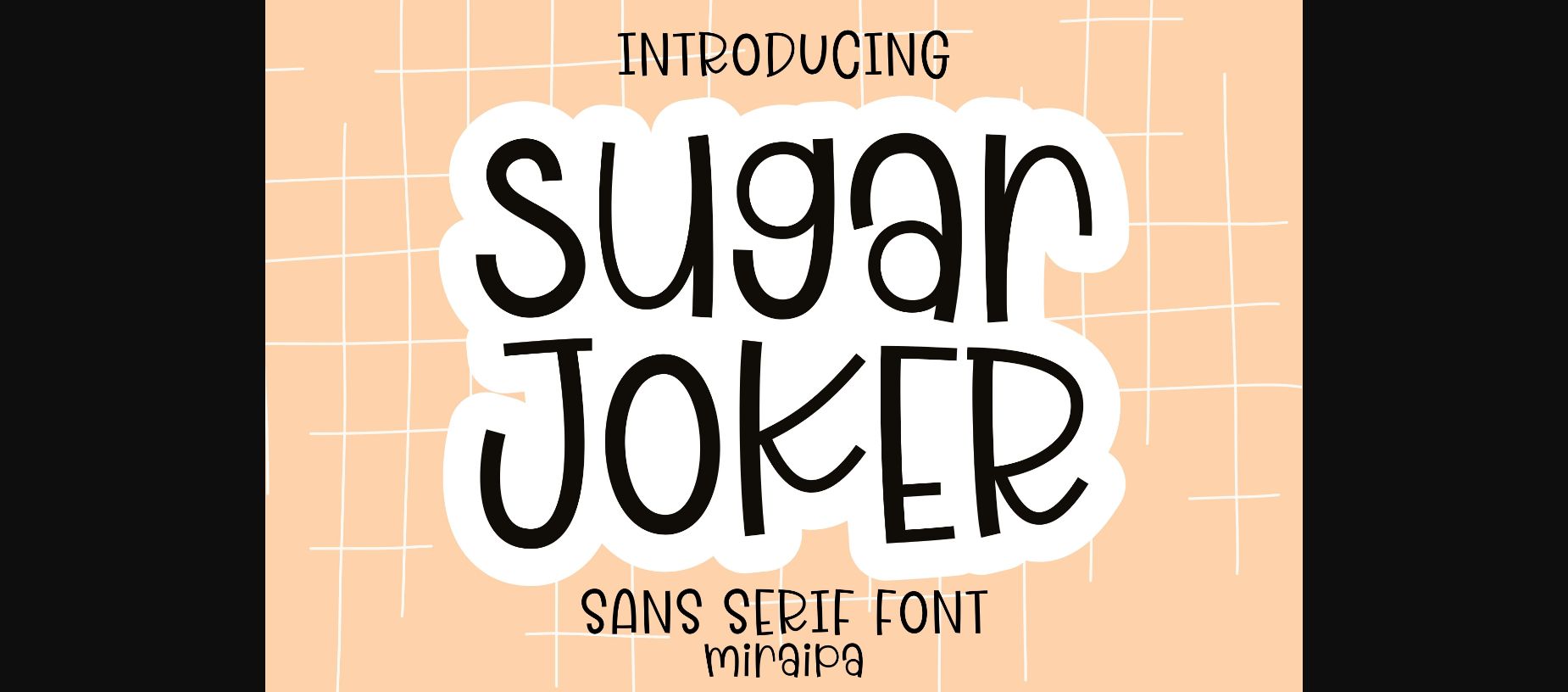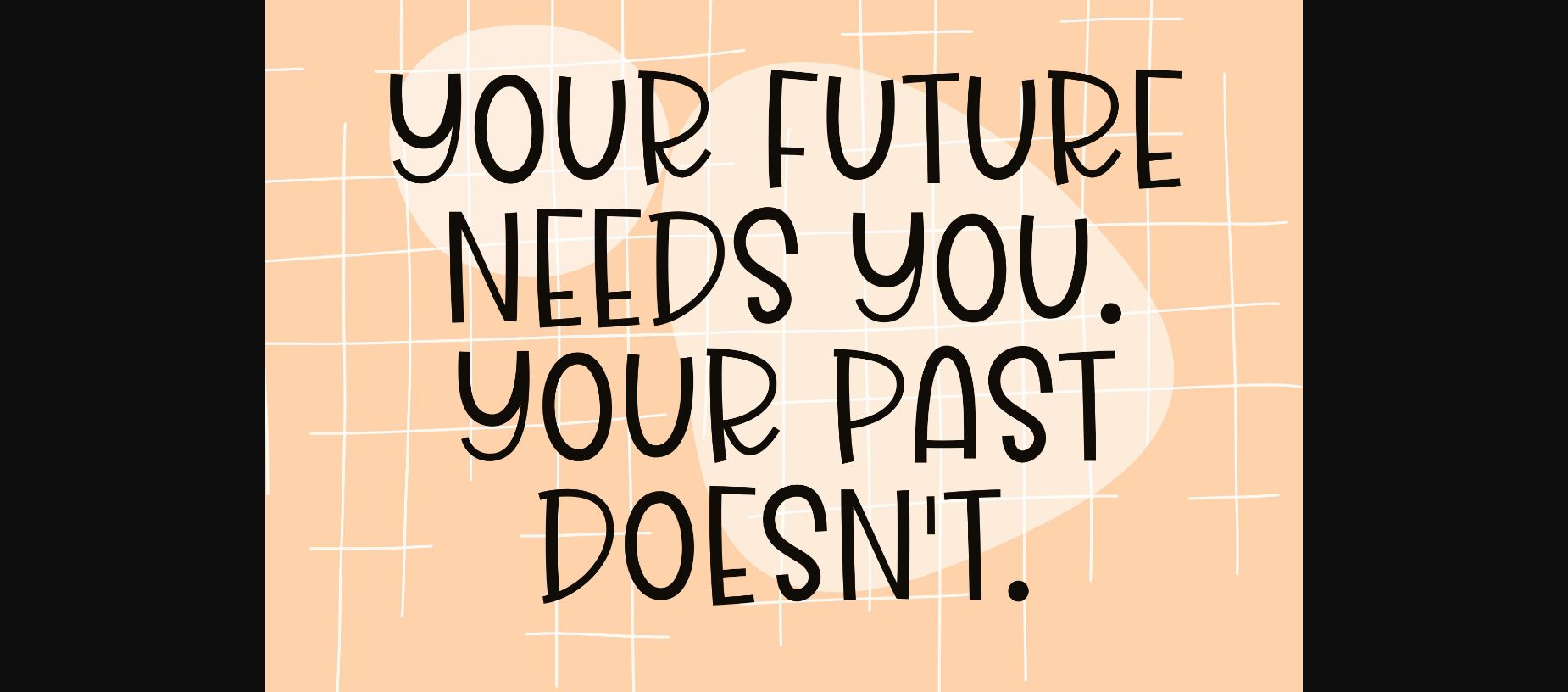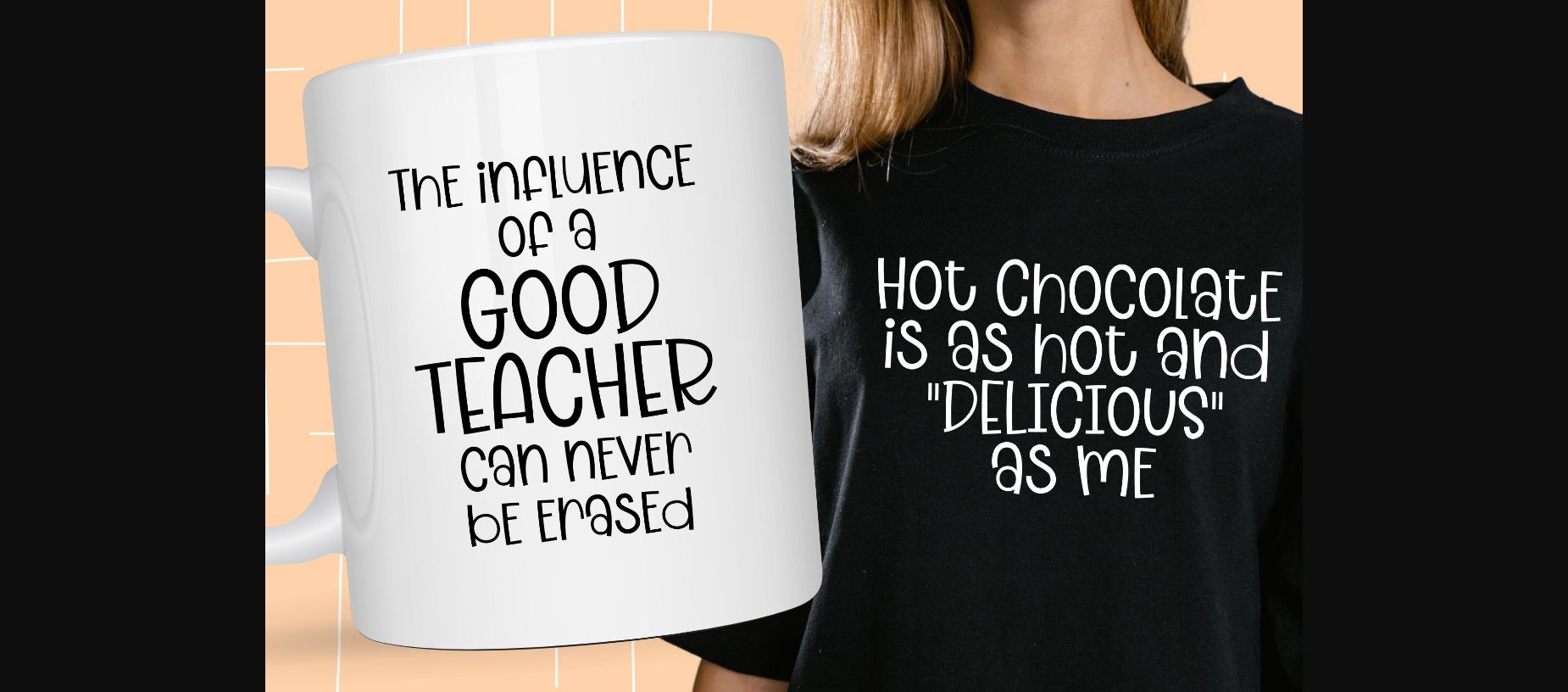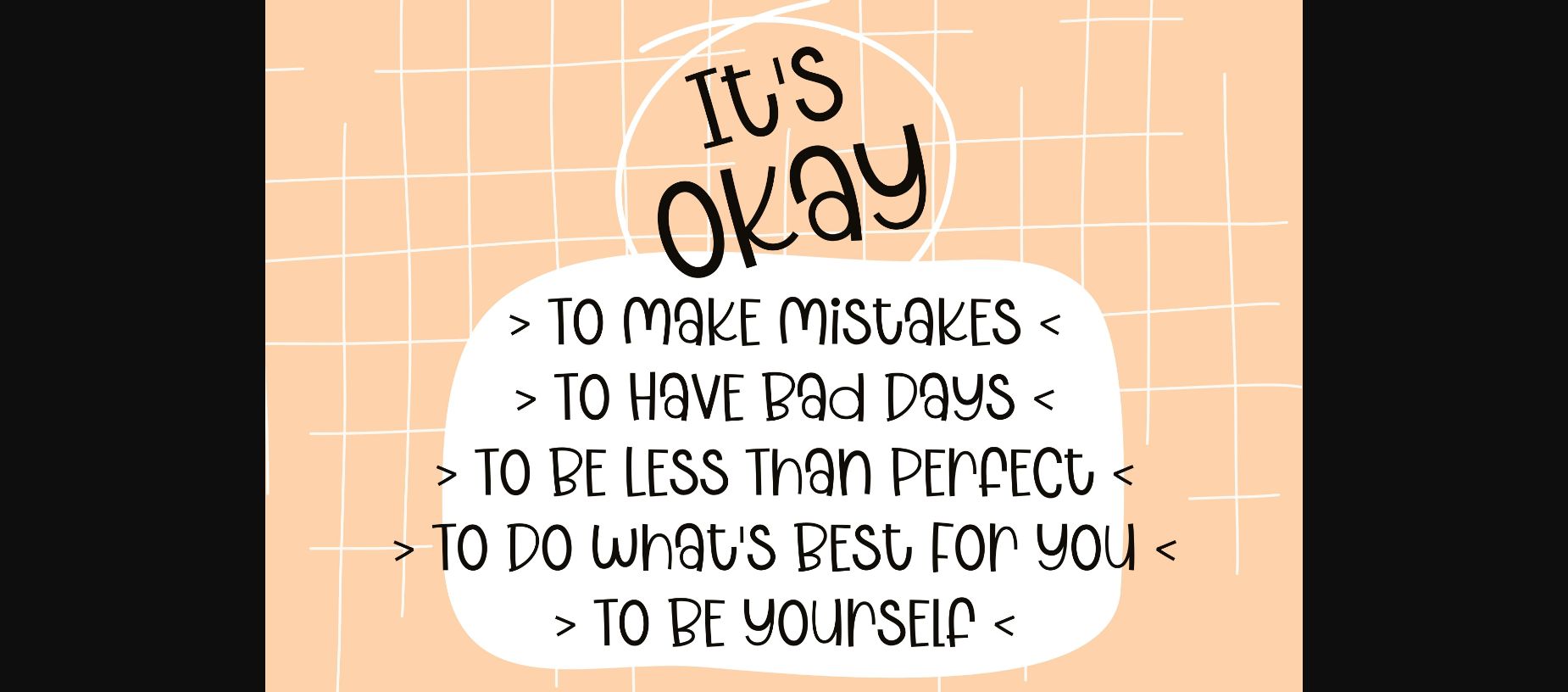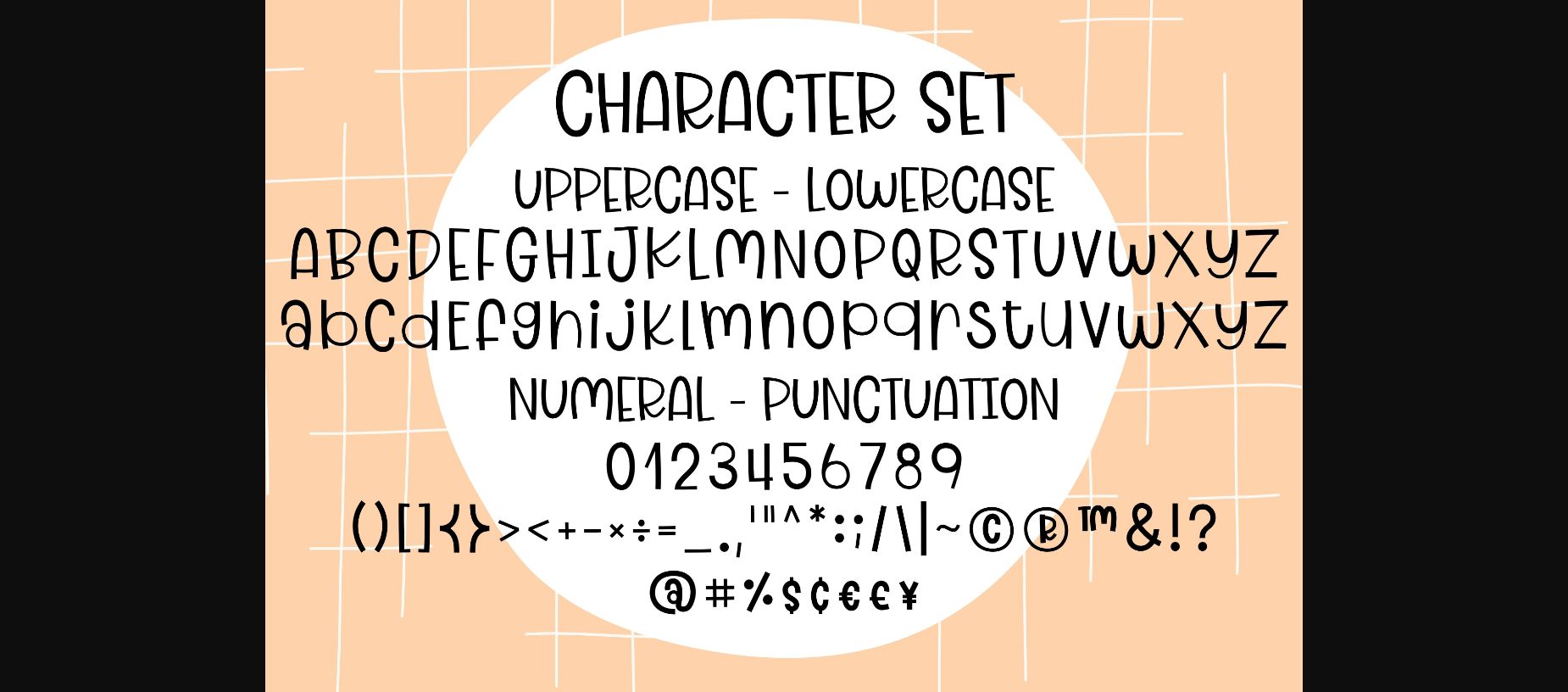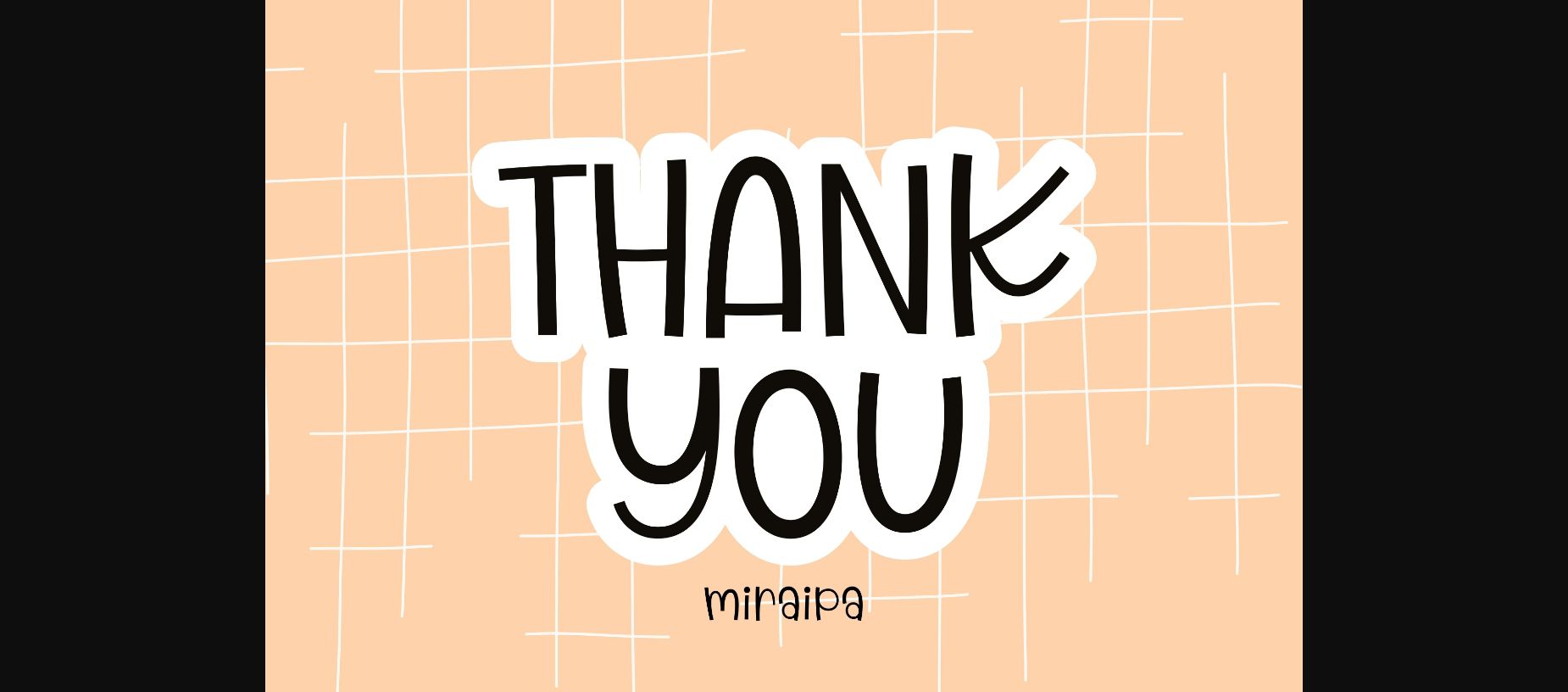
Sugar Joker Font
About Sugar Joker Font
Sugar Joker is a sweet and friendly sans serif font. Its natural and unique style makes it incredibly fitting to a large pool of designs. The only limit is your imagination!